Top 20+Perfect Logo Fonts For Branding Design 2023
20+Perfect Logo Fonts For Branding Design 2023. How to choose the most suitable font for logo and brand design? Font choice is a critical element of logo design. By changing your logo font, you can completely change your brand’s mood and message. Your font even has the power to influence your customer’s thoughts and emotions! However, there are many fonts that you can select from. So, how do you know you’ve found the right one for your brand? In this article, we present 20+ popular logo fonts for your branding design that will make an impact in 2023.
Clickbait - Brush Logo Font
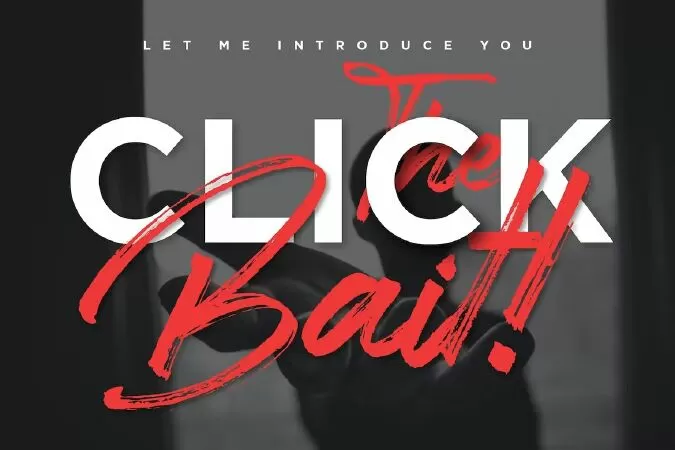
A calligraphy dry brush font that you'll never ignore. Implementation of almost-empty brush pen and super fast stroke to get those natural texture of hand lettering impression.
Some tips : it kinda perfect for logo, branding, a punchline words in a poster, quote, and any kind of situation that need an 'in your face' word.
Comes up with Uppercase stylistic alternates, double-letters ligatures (to get the feel of real handwriting) and some international language support (check the image)
Behover - Sports Logo Font
Behover is a bold with sans style font, comes with mix lowercase and uppercase to make your design easier and strong bold character.
Suitable for logotype, esport logo, or anything about display and headline.
Brolink - Logo Font
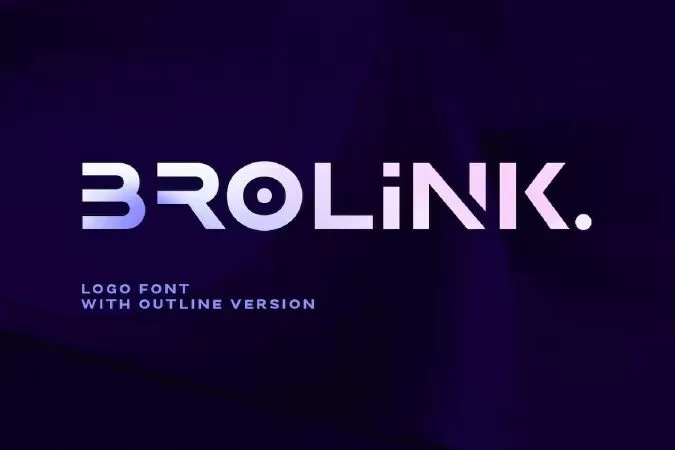
Brolink is a wide bold sans based font with unique lowercase that will make your design looks sci-fi and modern.
You can use this font for any purpose, especially to make logotype. You can mix and match the uppercase and lowercase to make your logo more readable.
This font also comes with outline style!
Ravera - Logo Font
Revera is a font inspired european style and the only fonts with shapes and styles that exactly resemble the european characters & Revera is easy to read and can be applied to all media and all can use this font without exception Revera is suitable for your projects such as logo, wedding invitations, branding, landing pages, posters, headlines, greeting cards, invitation cards, social media, crafting, quote and more.
Feature :
- Uppercase
- Lowercase
- Numerals And Punctuations
- Opentype (Alternates And Ligatures)
Squiborn - Logo Font
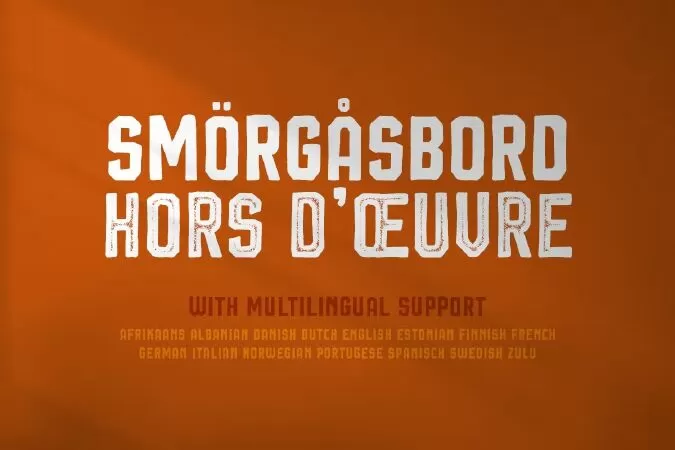
Introducing Squiborn, a hand drawn display font with bold and strong feel. This font perfectly made to be applied especially in logo, and the other various formal forms such as invitations, labels, magazines, books, greeting / wedding cards, packaging, fashion, make up, stationery, novels, labels or any type of advertising purpose.